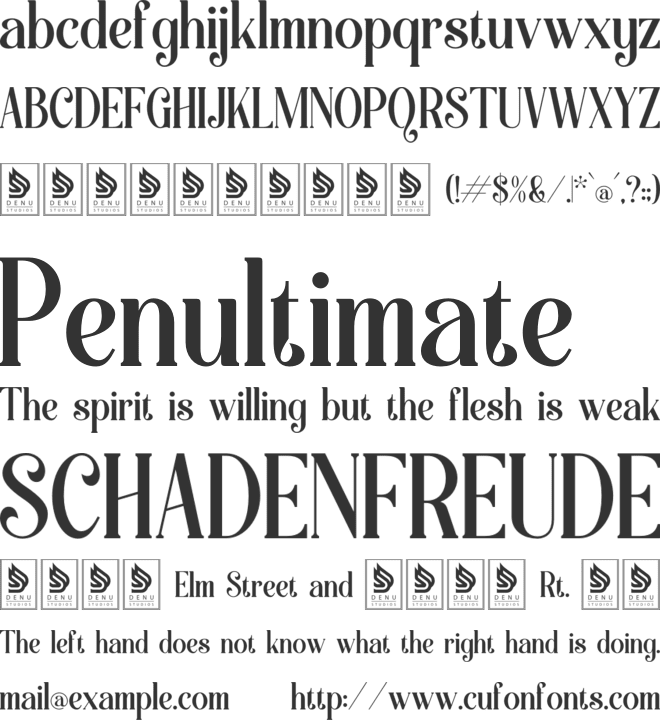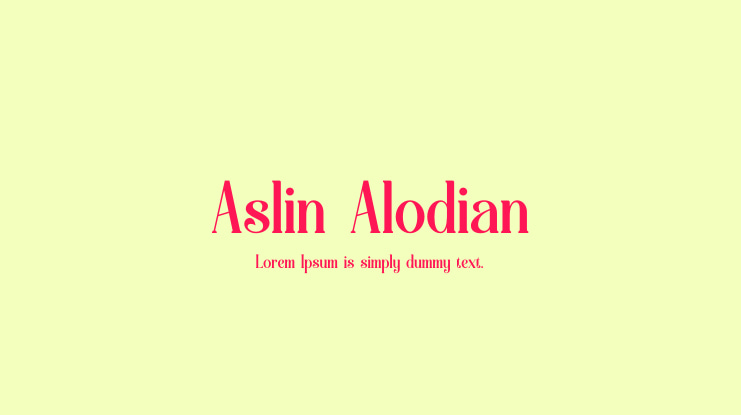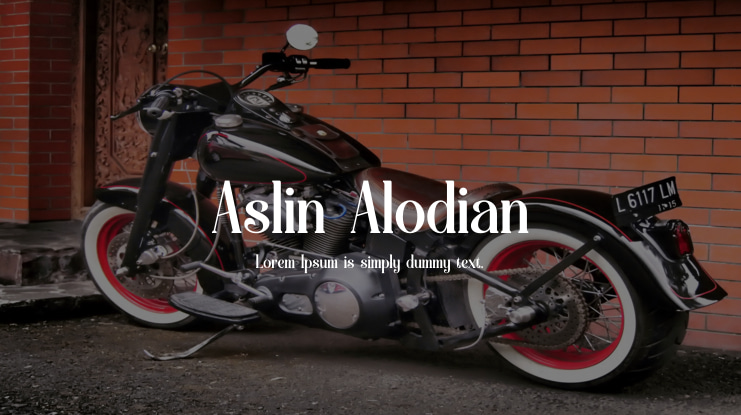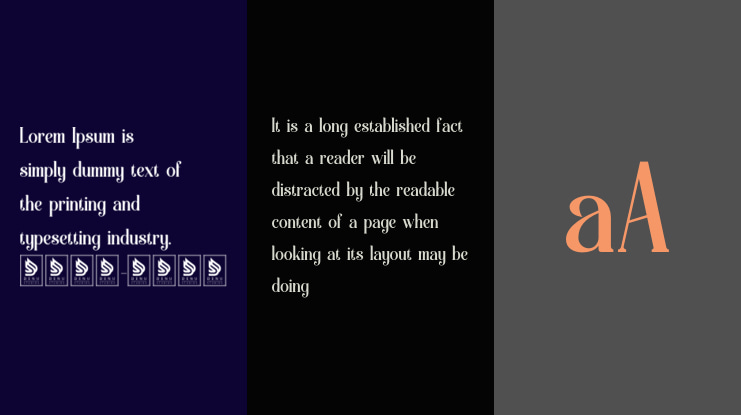
**Aslin Alodian | Modern Display Serif**
Aslin Alodian is a modern display serif font perfect for a variety of projects including:
- Logos - Branding projects - Homeware designs - Product packaging - Mugs - Quotes - Posters - Shopping bags - T-shirts - Book covers - Name cards - Invitation cards - Greeting cards - Labels - Photography - Watermarks - Special events
Use this font to bring a modern serif touch to all your creative projects.